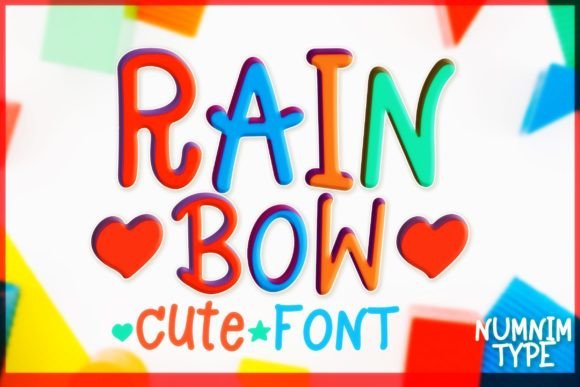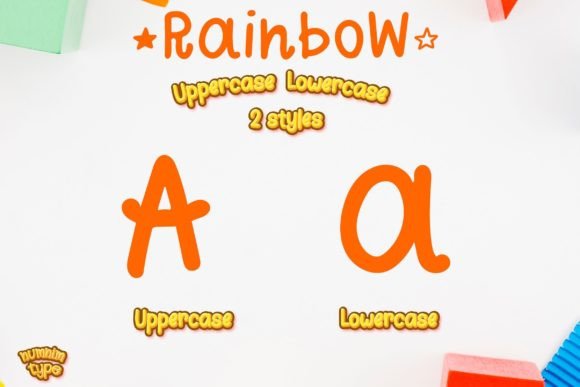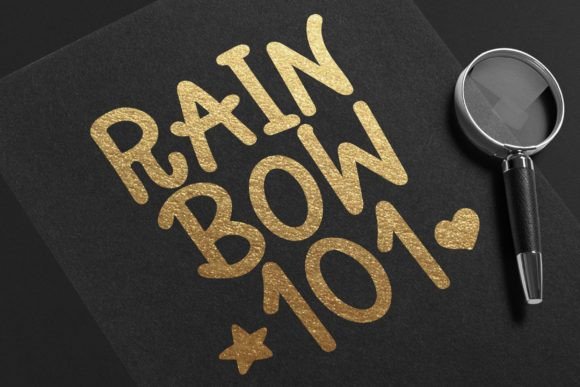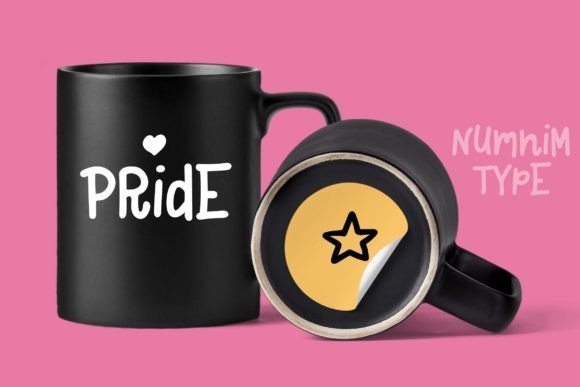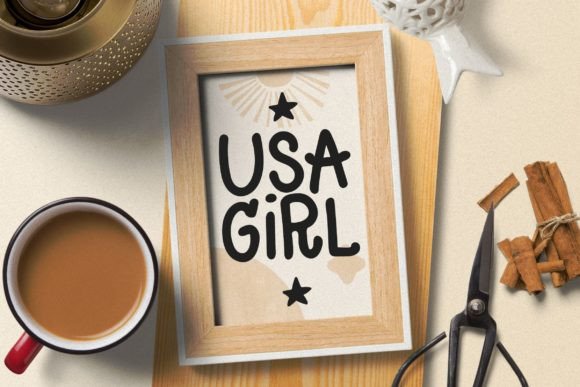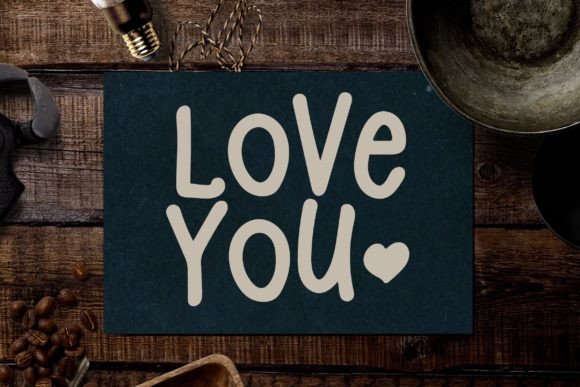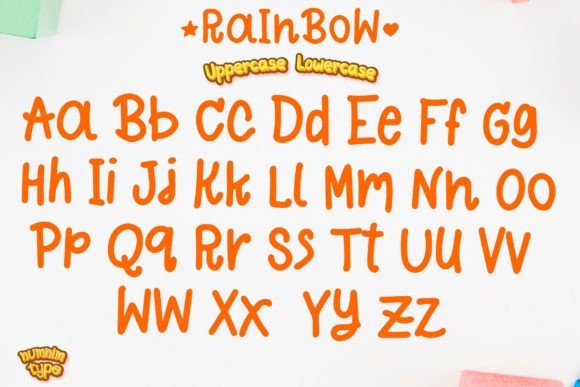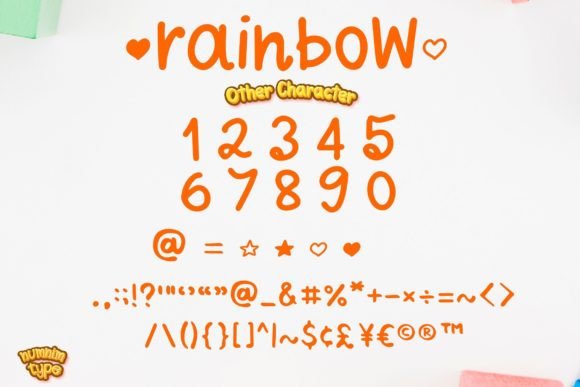
Rainbow Font
About Rainbow Font
“Rainbow” stands out as a cool and uniquely crafted handwritten font that injects a sense of fun and playfulness into your design projects. Its characters exude a lively charm, making it the perfect choice for a variety of creative applications, from stickers and mugs to t-shirts, ornaments, summer event cards, and beyond.
The font’s whimsical and free-spirited design adds a touch of personality to your creations, making them visually engaging and memorable. Whether you’re working on a vibrant summer-themed project or looking to infuse a playful vibe into everyday items, Rainbow is a versatile font that effortlessly captures attention and radiates positive energy.
Picture the delightful swirls and curves of Rainbow adorning stickers, creating a sense of joy and excitement. The font’s adaptability extends to mugs, where its playful characters can transform everyday items into lively expressions of creativity. Imagine T-shirts adorned with the unique charm of Rainbow, adding a fashionable and spirited touch to your wardrobe.
Ornaments and summer event cards become vibrant and festive with Rainbow’s lively typography. The font’s ability to convey a sense of celebration and warmth makes it an excellent choice for spreading cheer during special occasions and gatherings.
What sets Rainbow apart is its ability to resonate with a wide range of design projects, each benefiting from its distinctive and friendly aesthetic. The font’s handcrafted nature adds a touch of authenticity and warmth, making it an ideal choice for those seeking to infuse their creations with a personal and human touch.
In summary, Rainbow is more than just a font; it’s a creative companion ready to bring your ideas to life. Whether you’re designing stickers, mugs, T-shirts, ornaments, or summer event cards, this font is your go-to choice for injecting a dose of fun and playfulness into every project. Let Rainbow be the vibrant thread that weaves through your designs, leaving a trail of creativity and joy in its wake.